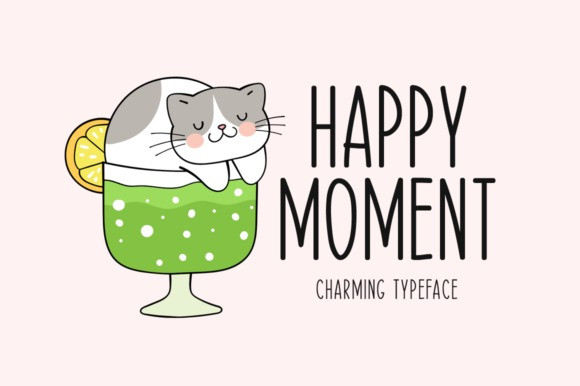
Happy Moment Display Font
Happy Moment is a cute and tall lettered handwritten font that can be used for all chalkboard quotes or teaching material! Its authentic look and feel will add a personal and realistic feel to your designs.